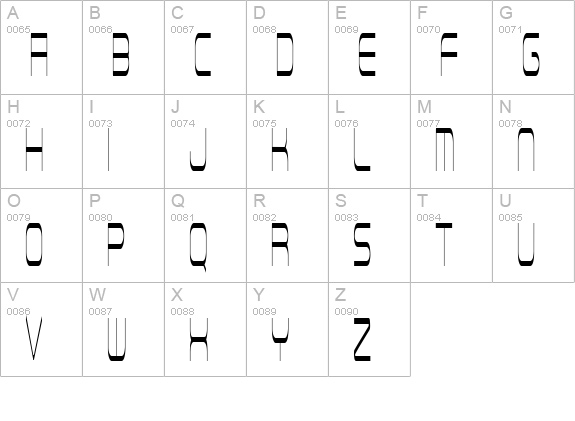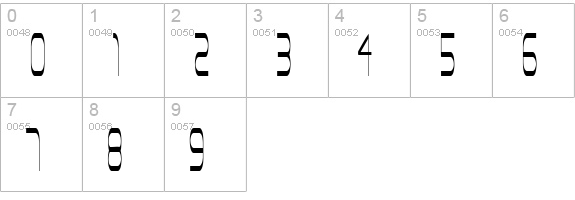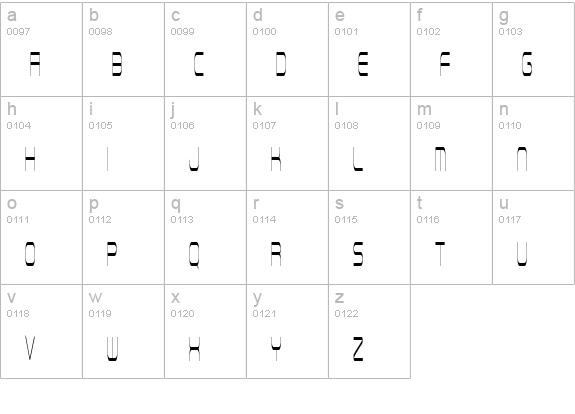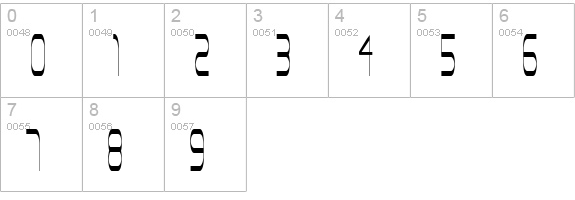
Reconnaissance Mission Font Details
Introducing the stunning Reconnaissance Mission font, a versatile typeface that exudes power, precision, and a touch of mystery. This font is perfect for any project that requires a strong, bold statement, whether it be in the realms of branding, advertising, or editorial design. Reconnaissance Mission is meticulously crafted to capture attention and leave a lasting impression. Its clean, sharp lines and balanced proportions give it a timeless appeal, making it suitable for a wide range of applications. Whether used for headlines, body text, or even logos, this font delivers exceptional legibility and readability, ensuring that your message is conveyed with utmost clarity. What sets Reconnaissance Mission apart is its remarkable versatility. It effortlessly adapts to any project, seamlessly complementing different visual styles and themes. Its bold presence commands attention, while its subtle details add depth and sophistication to your designs. But that's not all! Reconnaissance Mission is not only a font that impresses with its exceptional design, but it also comes with an unbeatable advantage - it is freely available to download at FontsMarket.com! Yes, you read that right. You can now access this outstanding font without breaking the bank, allowing you to elevate your creations without any limitations. So, whether you're a professional designer, a creative enthusiast, or simply someone looking to add a touch of elegance to their personal projects, Reconnaissance Mission font is your go-to choice. With its captivating aesthetics and the added bonus of being free to download at FontsMarket.com, this font is sure to become an essential tool in your creative arsenal. Embrace the power of Reconnaissance Mission and let your designs soar to new heights!